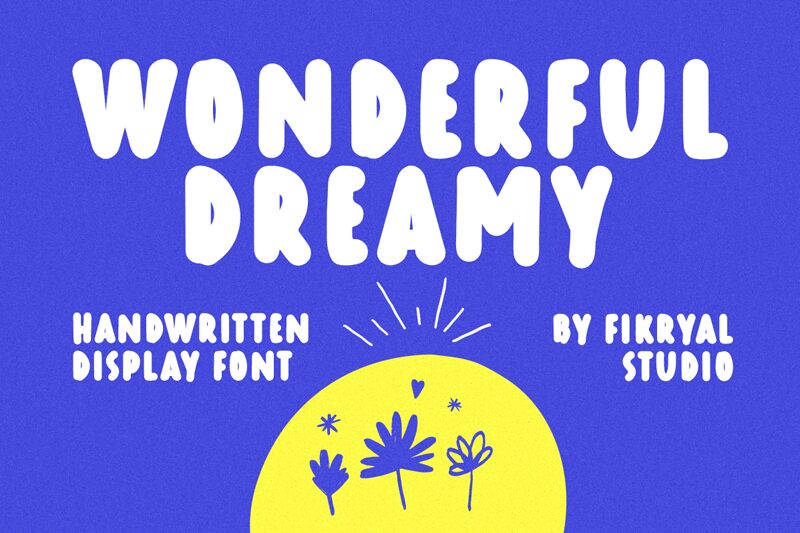
Wonderful Dreamy font, designed by Fikryal Studio, embodies a vibrant, playful spirit that captures the essence of whimsy. With its bold and condensed design, this font delivers a striking visual presence that makes it perfect for eye-catching headlines and engaging signage. The cartoon style adds an element of fun and creativity, making it an ideal choice for projects aimed at younger audiences or those seeking to evoke nostalgia.
This font’s distinctive character makes it suitable for various applications, from children’s books and playful branding to lively event posters. Its energetic aesthetic draws attention while maintaining readability, ensuring your message stands out in any design context. Wonderful Dreamy is not just a typeface; it's an invitation to dream and play with words.